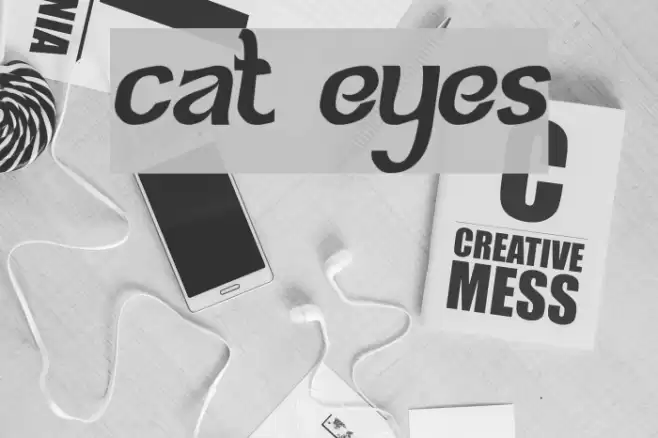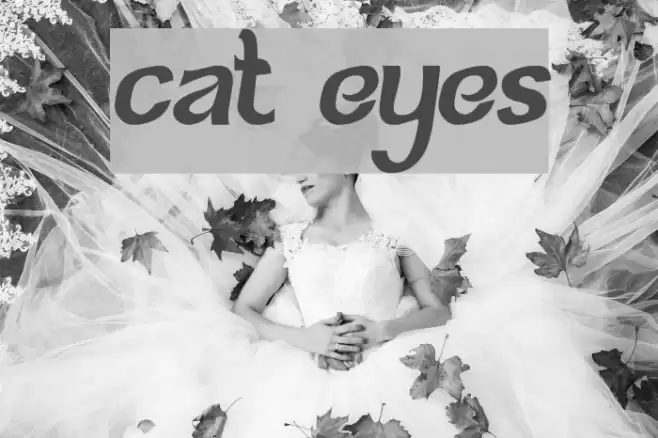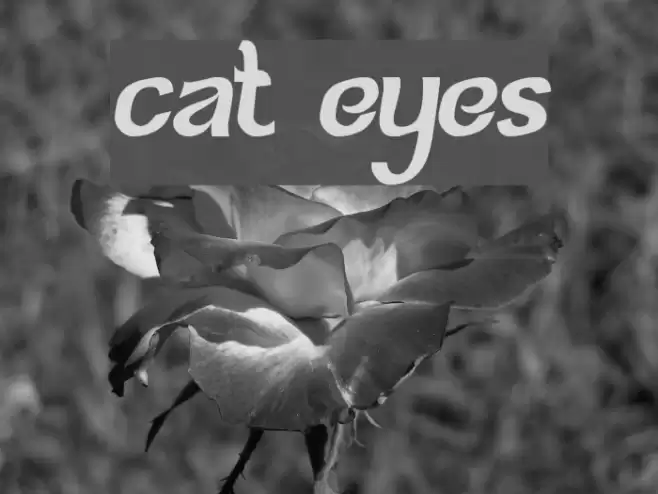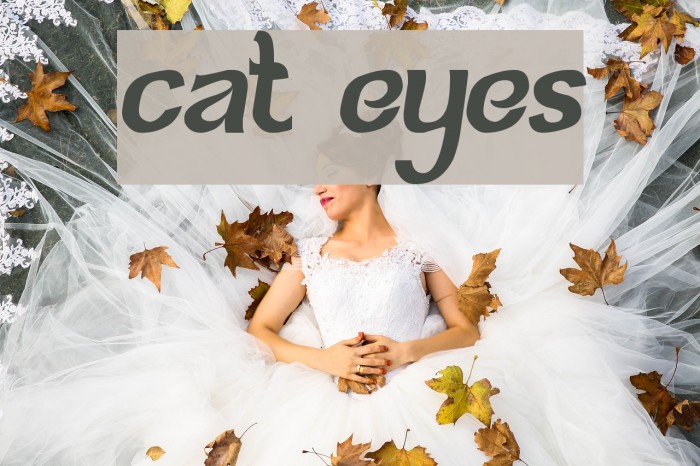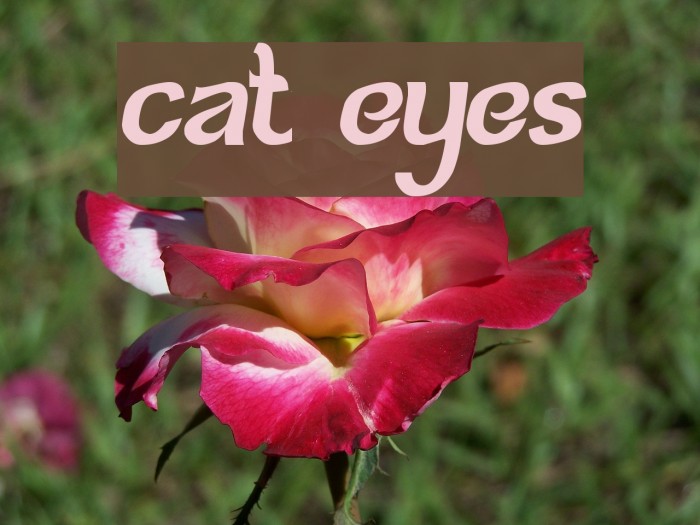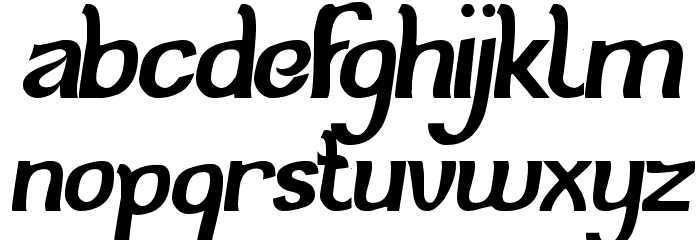
cat eyes Font
cat eyes Description
This font features a playful and dynamic style with a handwritten feel. The characters are slightly slanted, giving a sense of movement and energy. The strokes are bold and consistent, with a medium contrast between thick and thin lines. The overall appearance is casual yet stylish, making it suitable for creative and informal projects. The letters have a unique flair, with some characters having distinctive loops and curves that add to the font's charm. The spacing between characters is normal, ensuring readability while maintaining its artistic appeal.
A playful, handwritten-style font with bold strokes and dynamic slant from Uncategorized fonts.
- Proposed Projects: Ideal for greeting cards, invitations, posters, and branding materials that require a personal touch.
- Overall Style: Casual, Artistic
- Use Case: Headlines, Logos, Creative projects